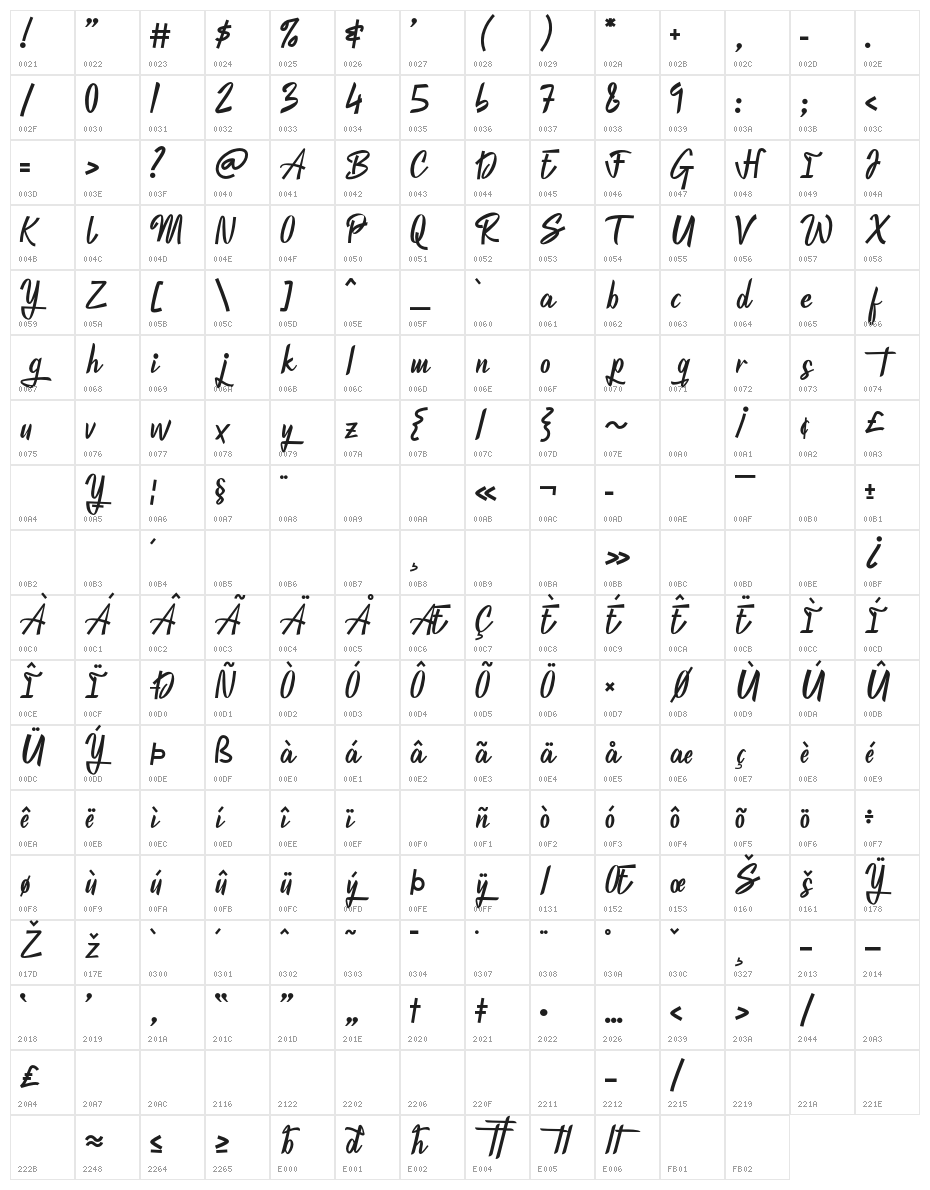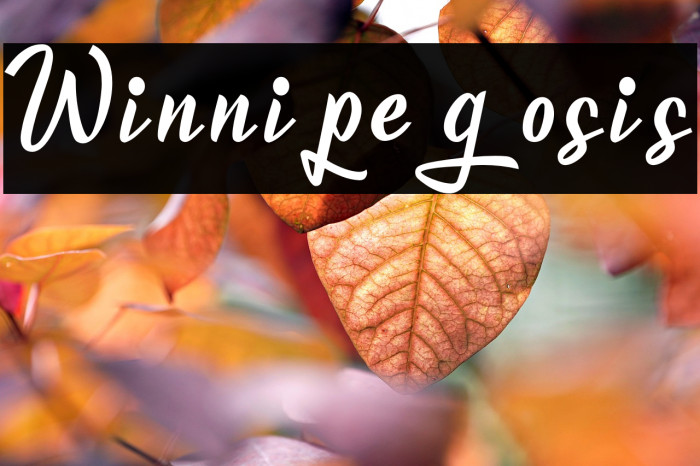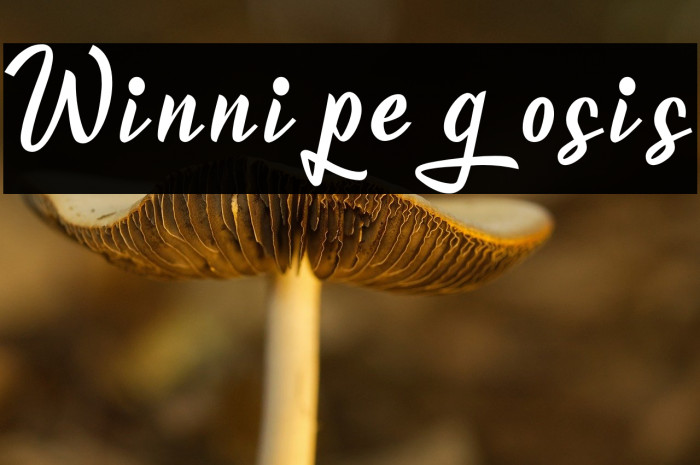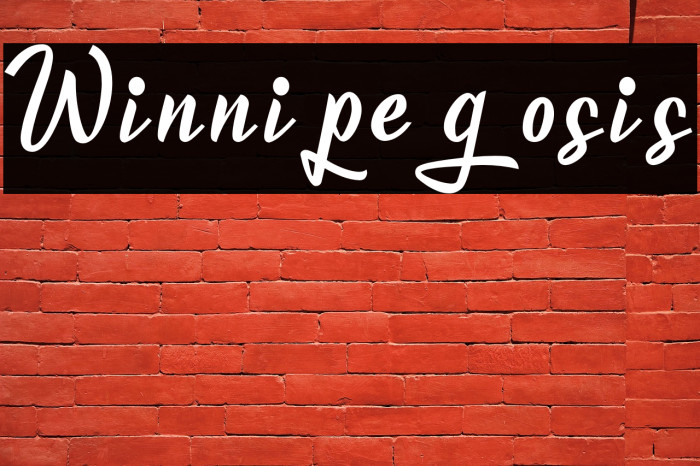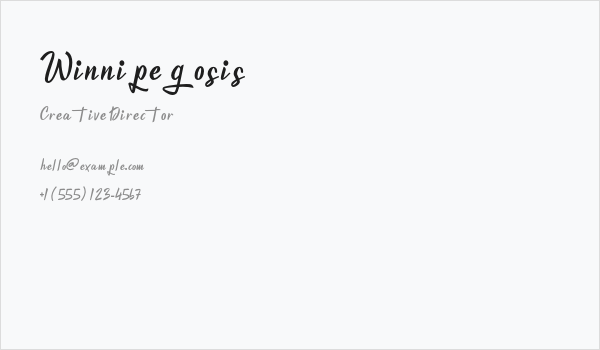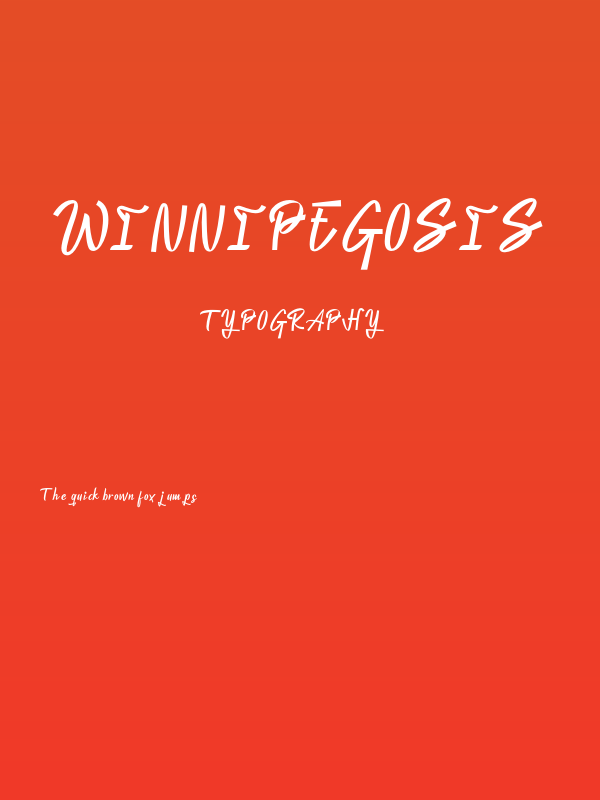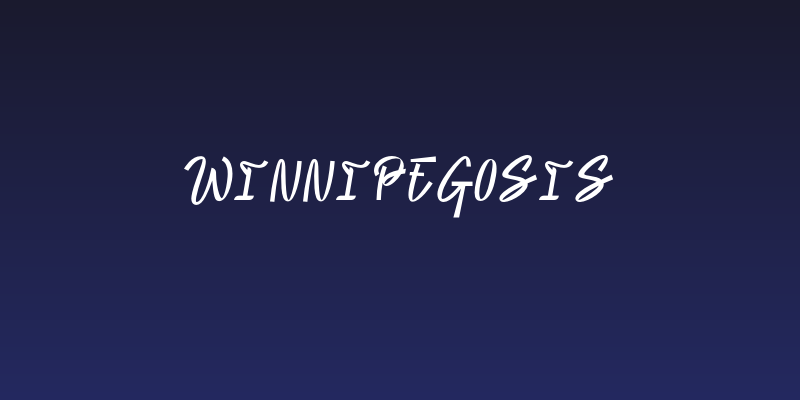
Winnipegosis Font
Winnipegosis Description
This font features a dynamic and expressive script style, characterized by its fluid and cursive letterforms. The uppercase letters are bold and slightly slanted, giving a sense of movement and energy. The lowercase letters maintain a consistent flow, with some characters extending below the baseline, adding to the font's lively appearance. The numerals are bold and clear, matching the overall style of the alphabet. Special characters are integrated seamlessly, maintaining the font's cohesive look. This font is ideal for projects that require a personal and artistic touch, such as invitations, branding, and creative designs.
| Proposed Projects | Ideal for invitations, branding, creative designs, and artistic projects. |